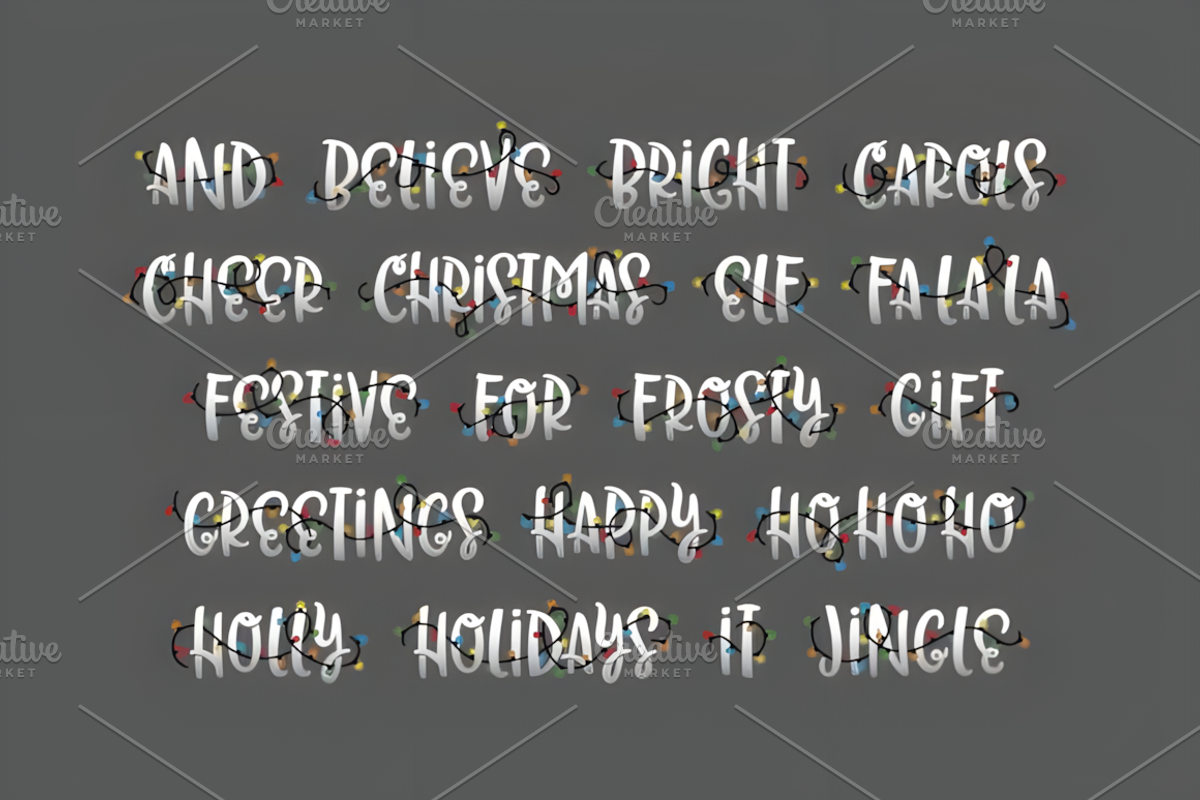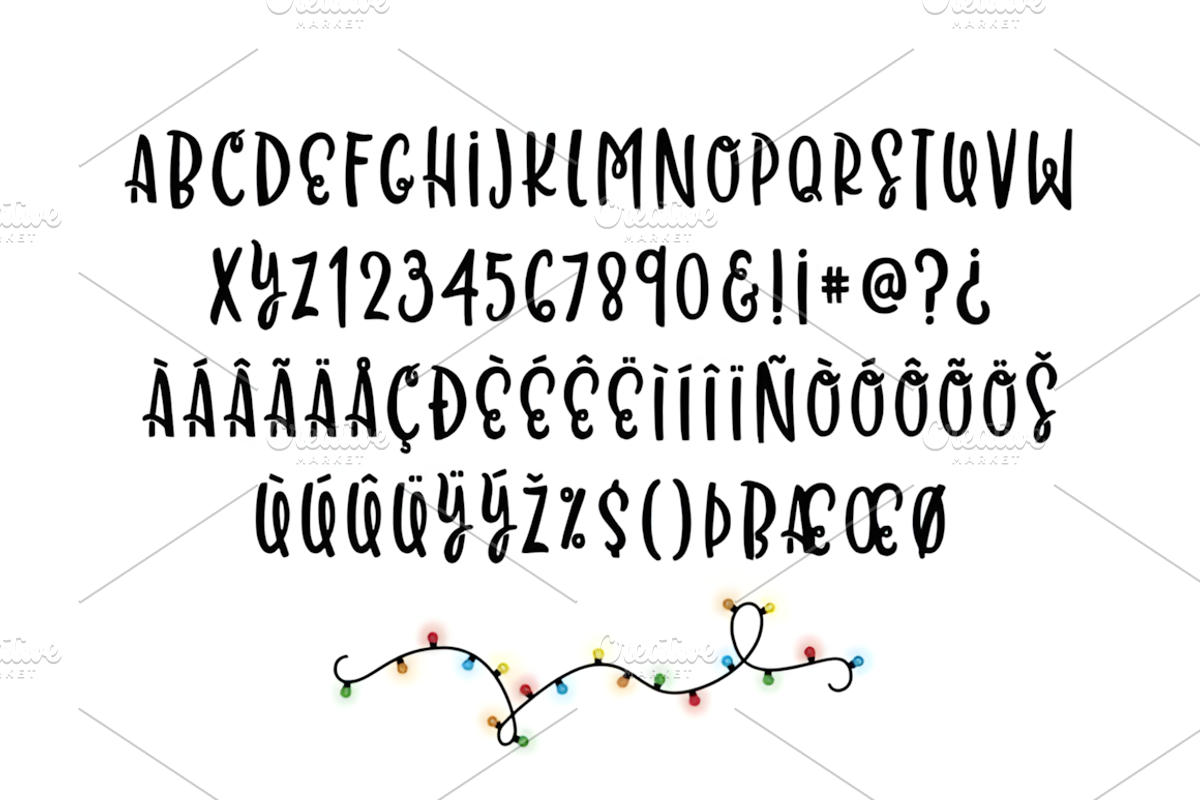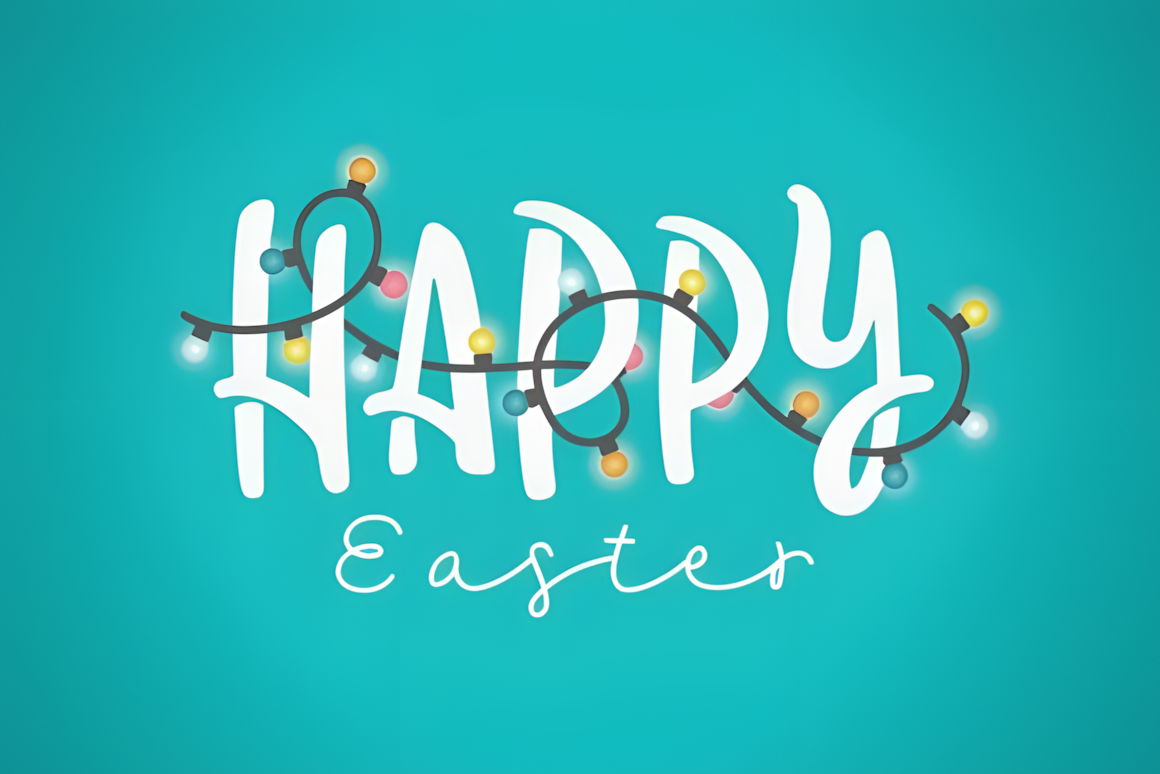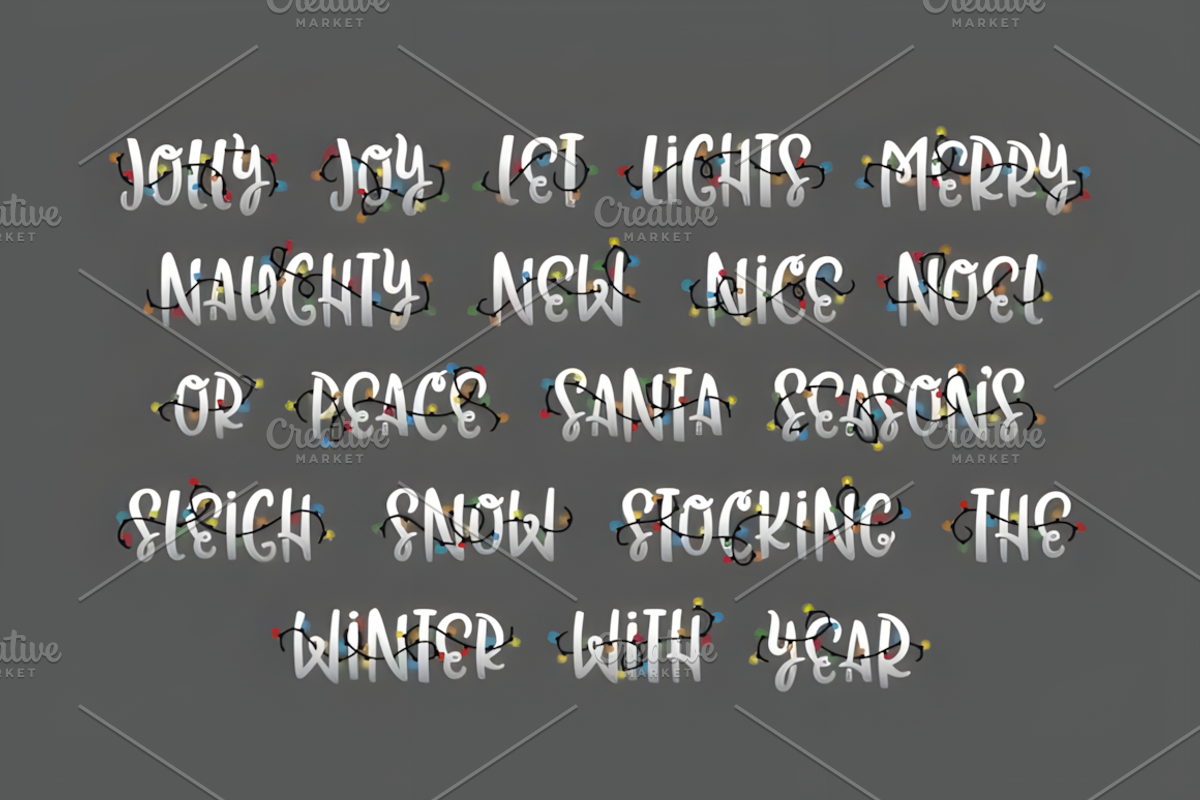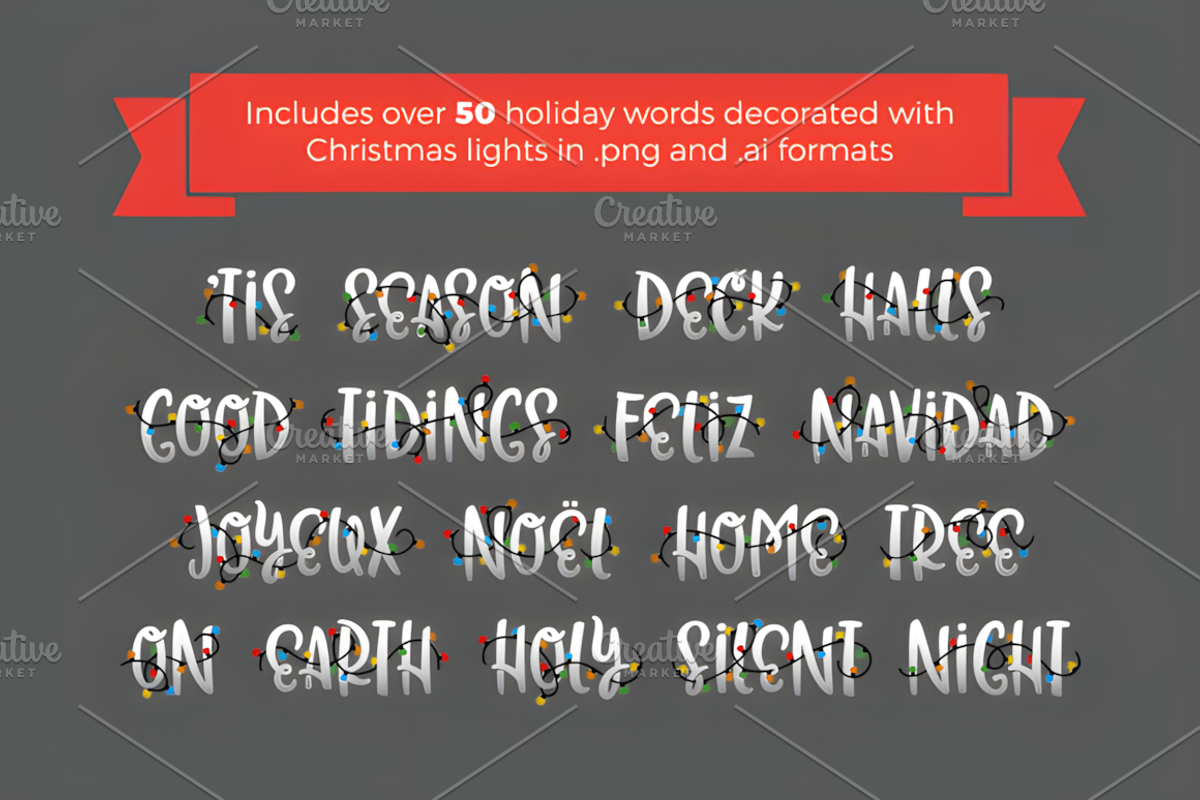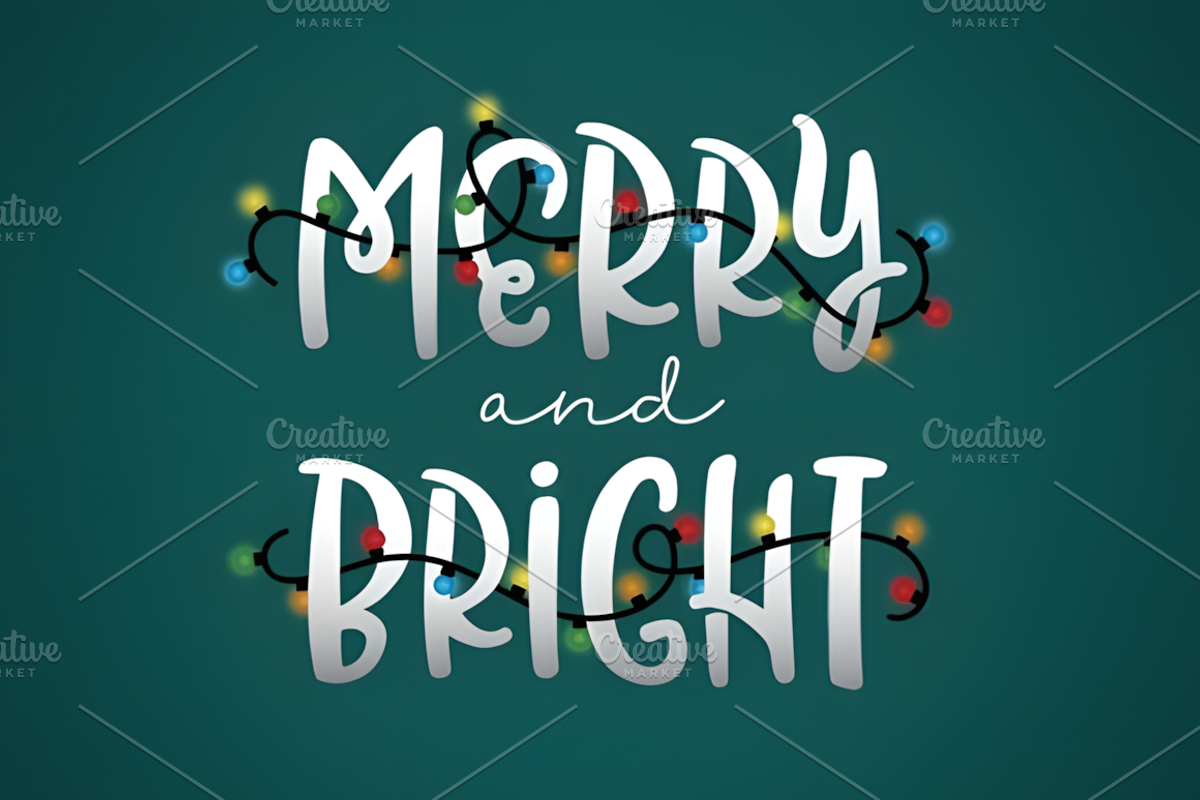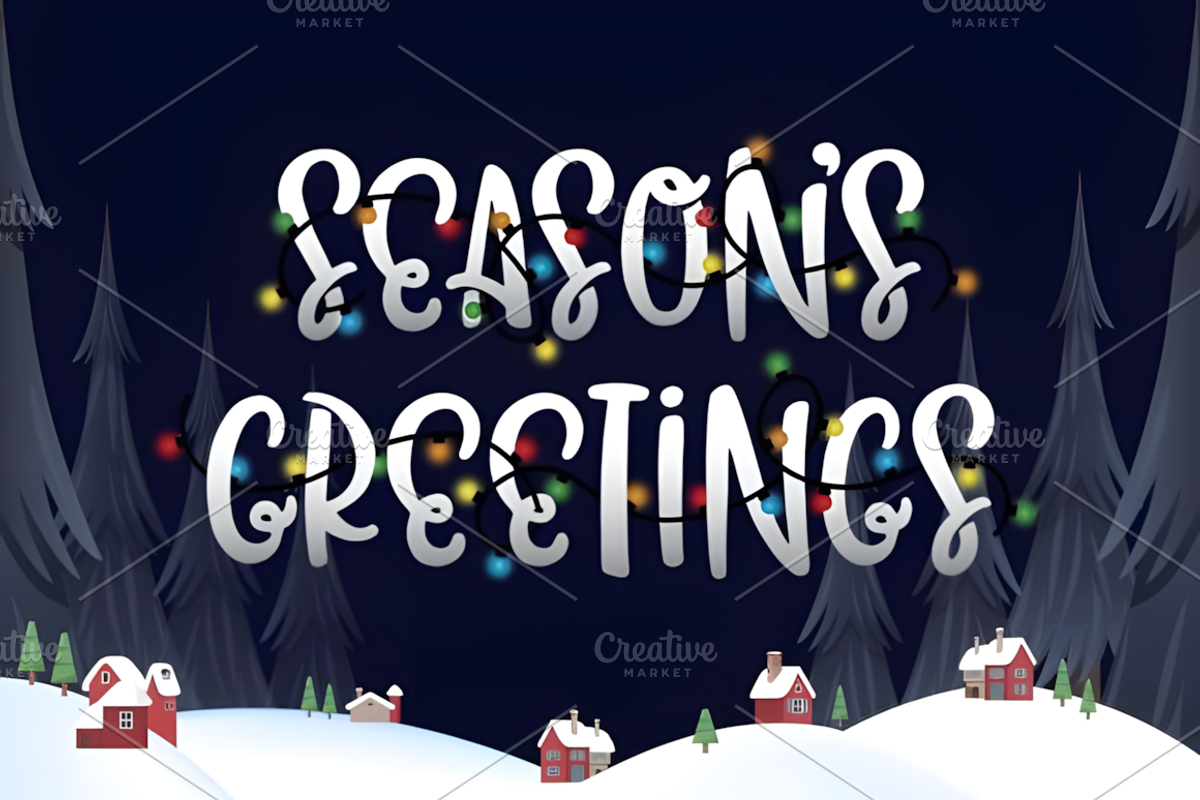
Christmas Lights Font
Christmas Lights is a bold, all-caps font with tons of character. Included in the pack are holiday words decorated with stringed lights.